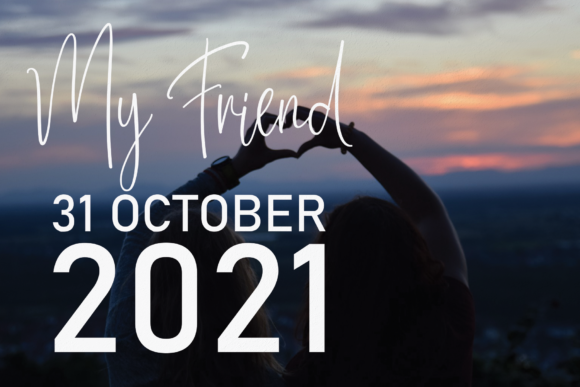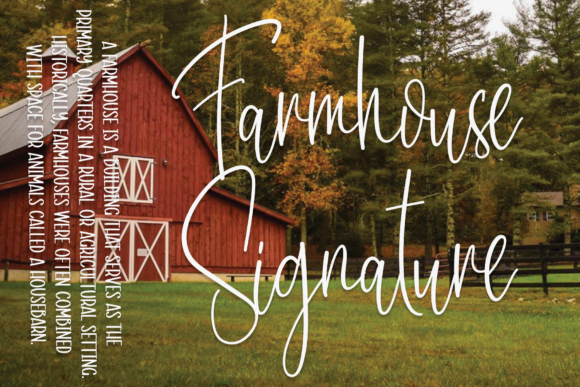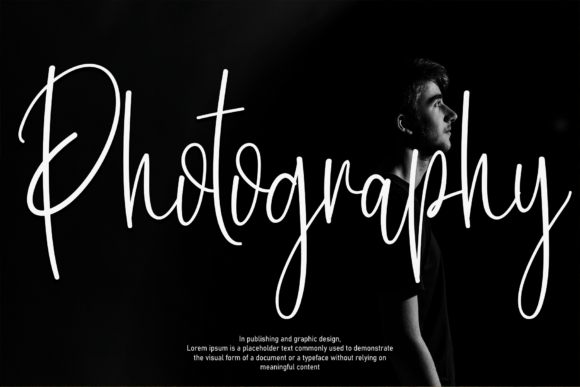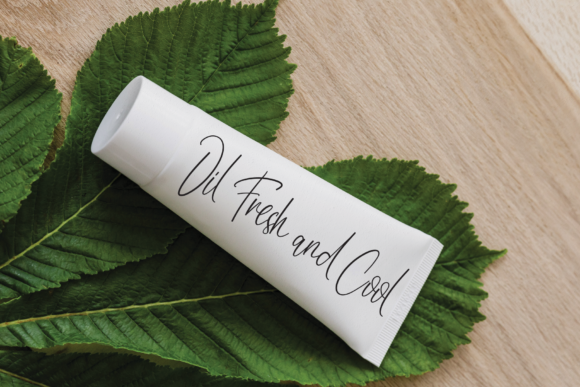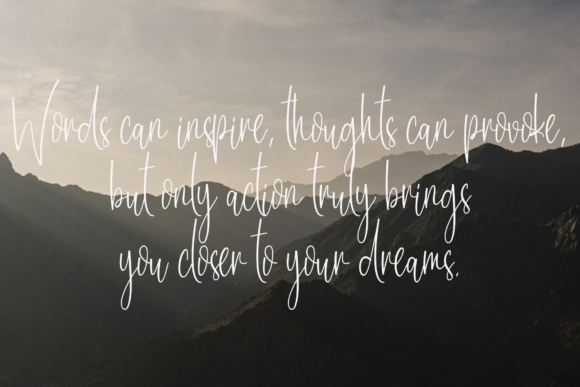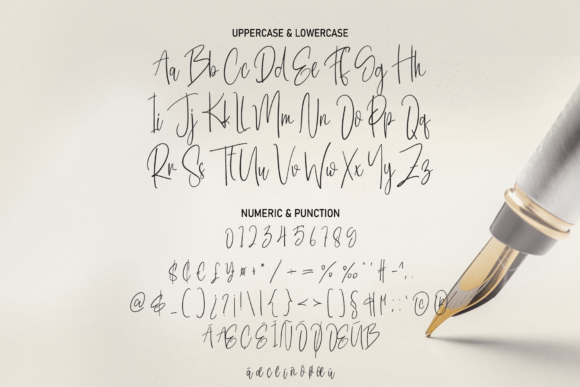
The Beauty of Handwritten Fonts: Elevate Your Design with Elegance
Handwritten fonts have become a staple in the world of design, offering a touch of elegance and sophistication to various projects. Among the numerous handwritten fonts available, one stands out for its fashionable and delicate script: Handwritten. This versatile font is suitable for a wide range of applications, including book texts, documentation, business reports, business correspondence, magazines, newspapers, posters, advertisements, multimedia, and corporate design.
Handwritten fonts are designed to mimic the natural flow of handwriting, providing a personal and human touch to your designs. They can instantly elevate your project from ordinary to extraordinary, making it more visually appealing and engaging. Whether you’re a designer, craftsperson, or simply someone who appreciates beautiful typography, handwritten fonts are sure to captivate your audience.
Introducing Handwritten Font
Handwritten is a beautiful script font that exudes elegance and refinement. Its delicate strokes and flowing curves make it perfect for designs that require a touch of sophistication. This font is highly versatile, allowing you to use it in various contexts, from formal documents to creative projects.
Applications of Handwritten Font
- Book Texts and Documentation: Add a touch of elegance to your book texts, articles, and documents with Handwritten font. Its readability and flowing curves make it perfect for lengthy content.
- Business Reports and Correspondence: Elevate your business reports, letters, and emails with a sophisticated and professional font that showcases your attention to detail.
- Magazines and Newspapers: Use Handwritten font to add a touch of personality to your magazine or newspaper articles, making them more engaging and visually appealing.
- Posters and Advertisements: Create eye-catching posters and advertisements with Handwritten font, perfect for promoting products, services, or events.
- Multimedia and Corporate Design: Incorporate Handwritten font into your multimedia projects, such as videos, presentations, and website designs, to add a touch of elegance and sophistication.
Benefits of Using Handwritten Font
Handwritten font offers numerous benefits, including:
- Unique and Memorable: Handwritten font adds a personal touch to your designs, making them more memorable and engaging.
- Versatile: Suitable for various applications, from formal documents to creative projects.
- Elegant and Sophisticated: Elevate your designs with a touch of elegance and refinement.
- Easy to Read: Clear and readable, making it perfect for lengthy content.
Tips for Using Handwritten Font
To get the most out of Handwritten font, consider the following tips:
- Use it Sparingly: Balance your design with other fonts to avoid overwhelming the reader.
- Pair it with Other Fonts: Combine Handwritten font with other fonts to create visual interest and contrast.
- Adjust Font Size and Style: Experiment with different font sizes and styles to create a unique look.
Handwritten font is a beautiful and versatile script font that can elevate your designs with elegance and sophistication. Its delicate strokes and flowing curves make it perfect for various applications, from formal documents to creative projects. Whether you’re a designer, craftsperson, or simply someone who appreciates beautiful typography, Handwritten font is sure to captivate your audience. So why not give it a try and add a touch of handmade charm to your designs?